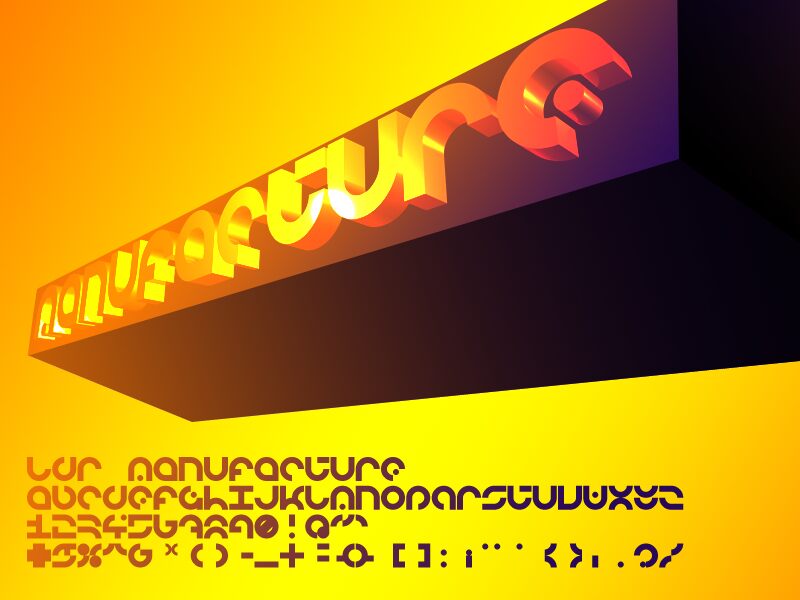
LDR Manufacture by Neoqueto is a free groovy display font with broad, rounded letters and a distinctly modular silhouette. Circular bowls and deep arches create a compact geometric rhythm.
Its circle-and-arch vocabulary connects directly with abstract pattern work, making it apt for music posters, record packaging, and fashion graphics. In venue signage and event branding, the repeated shapes can become part of an emblem or border rather than serving only as lettering.